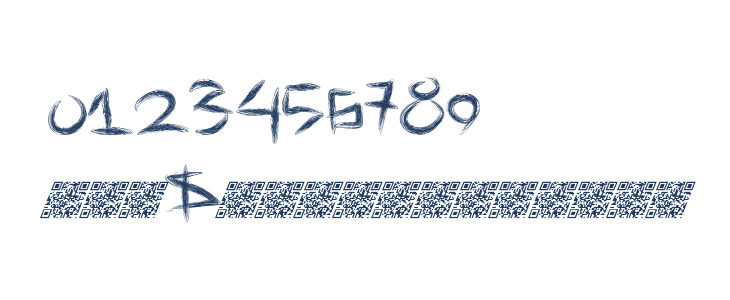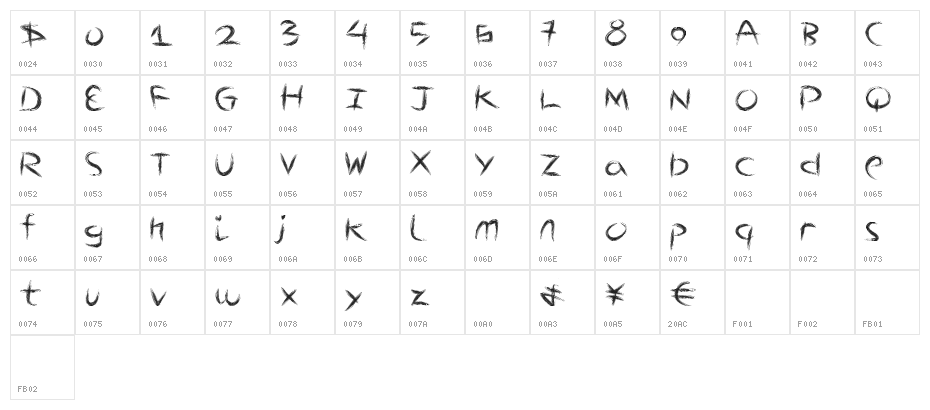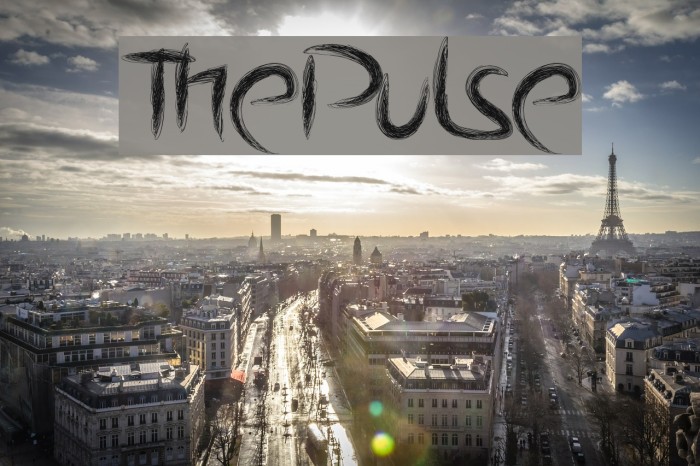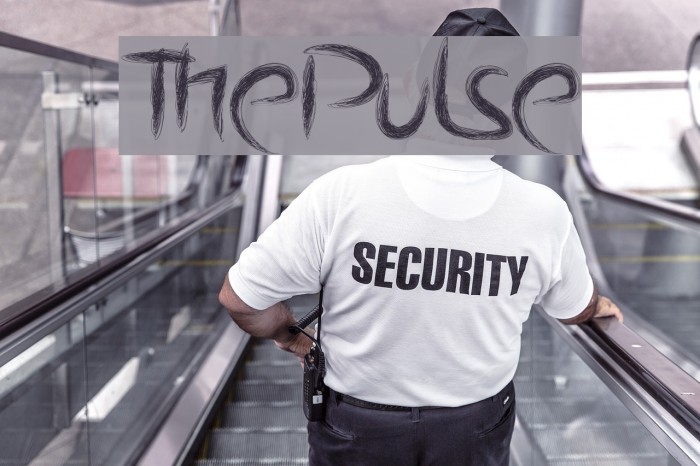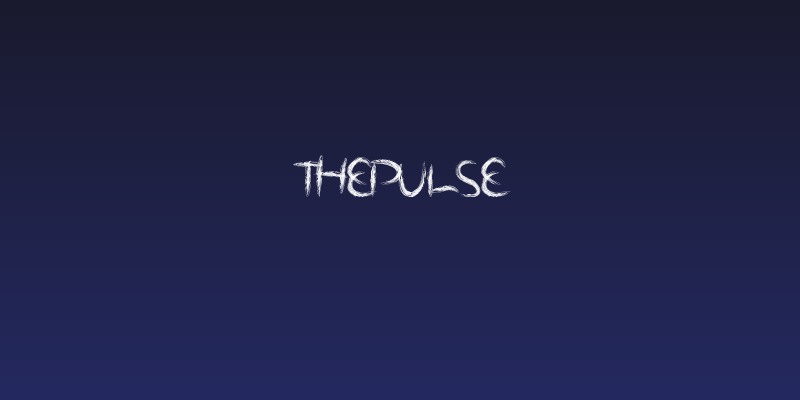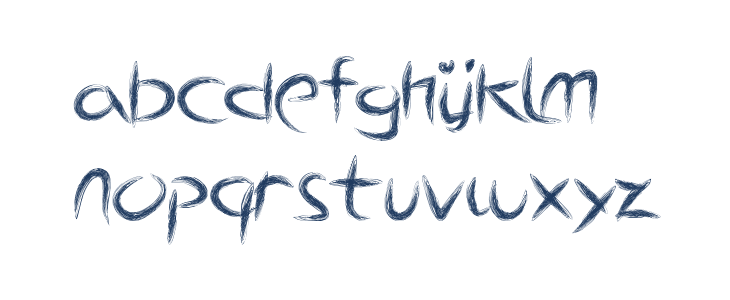
ThePulse Font
ThePulse Description
This font exhibits a dynamic and energetic style, characterized by its rough, textured strokes that give it a hand-drawn appearance. The letters are bold and expressive, with a sense of movement and spontaneity. Each character is unique, with varying thicknesses and angles, creating a lively and artistic feel. The uppercase and lowercase letters maintain a consistent style, while the numbers and special characters integrate seamlessly with the overall design. This font's distinctive look makes it ideal for projects that require a bold, creative touch.
| Overall Style | Artistic, Energetic |